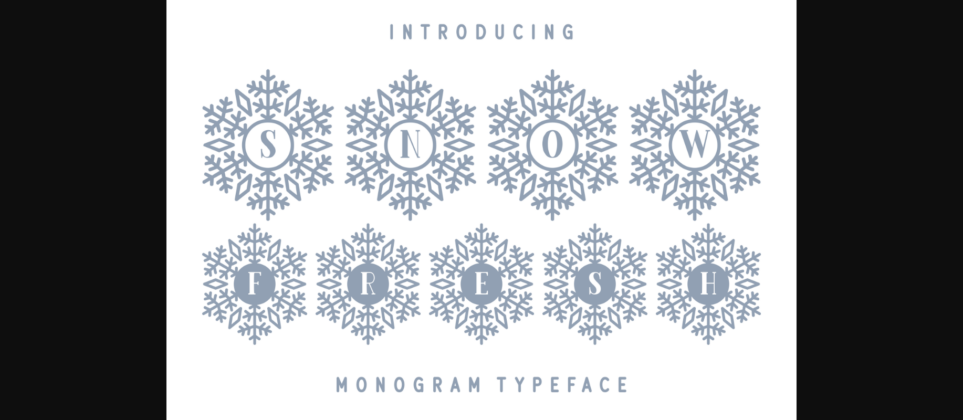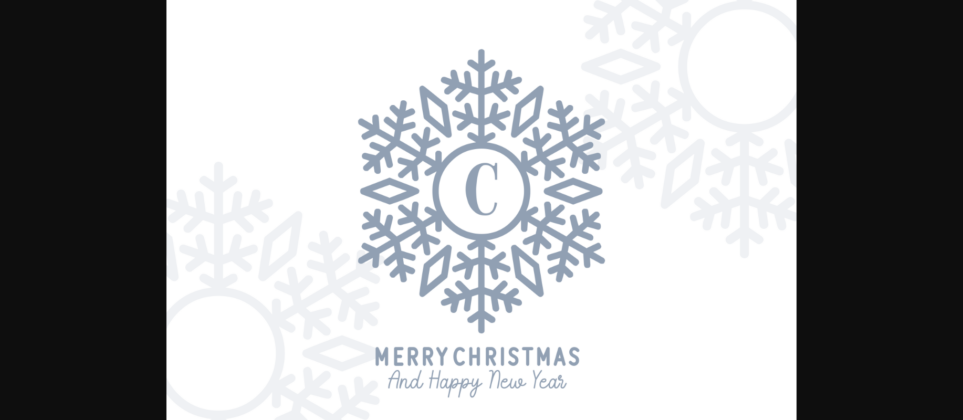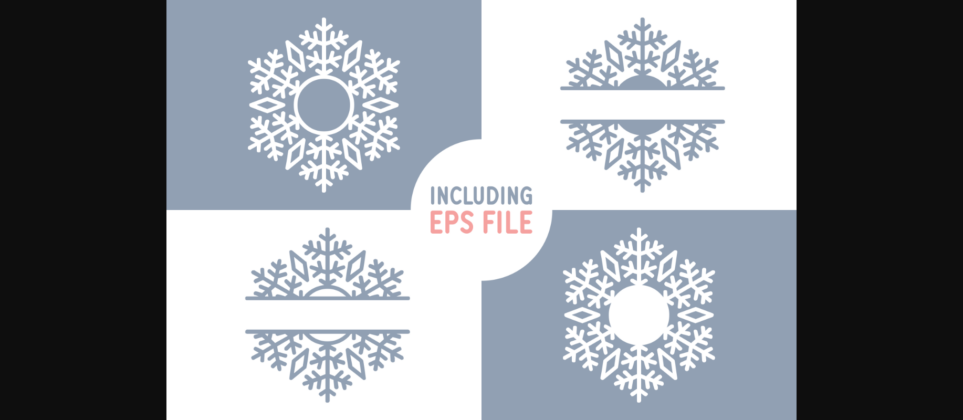
About Snow Fresh Font
Snow Fresh is a fun, wintery and highly detailed decorative font. Add it to each of your Christmas cards, letters and invitations and you will love the results.